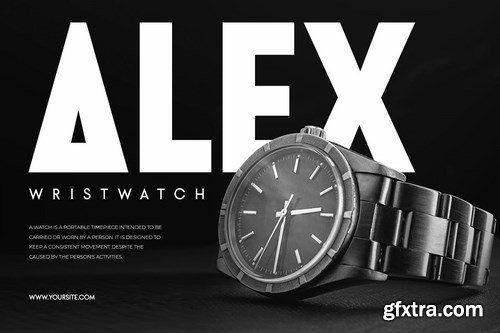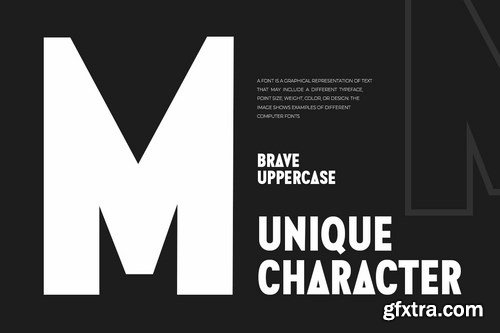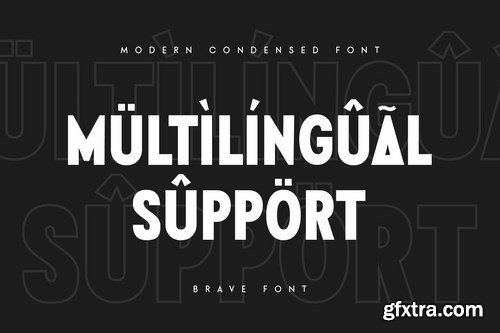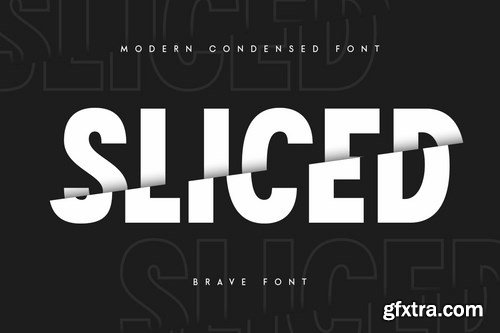
BRAVE is a Modern Sport font that created special for Branding, Title and more stand out typography needs, with extra alternative styles that make your design more memorable. It's so perfect to add your style and headline overview for sport, technology, actions, and fighting theme. And specially for this font, we crafted for bold action style and modern feels so enjoy to create any project that will show your main idea out.